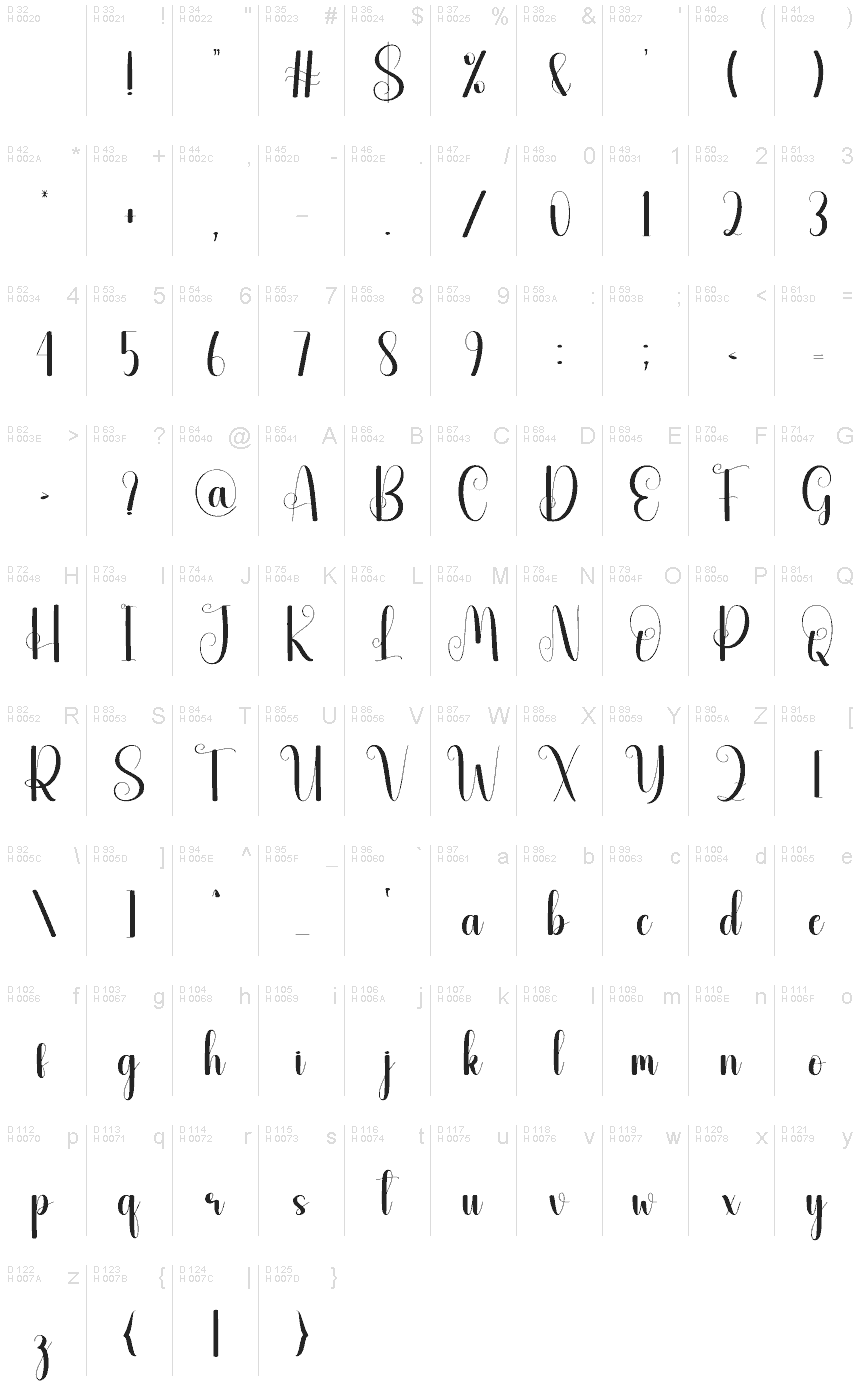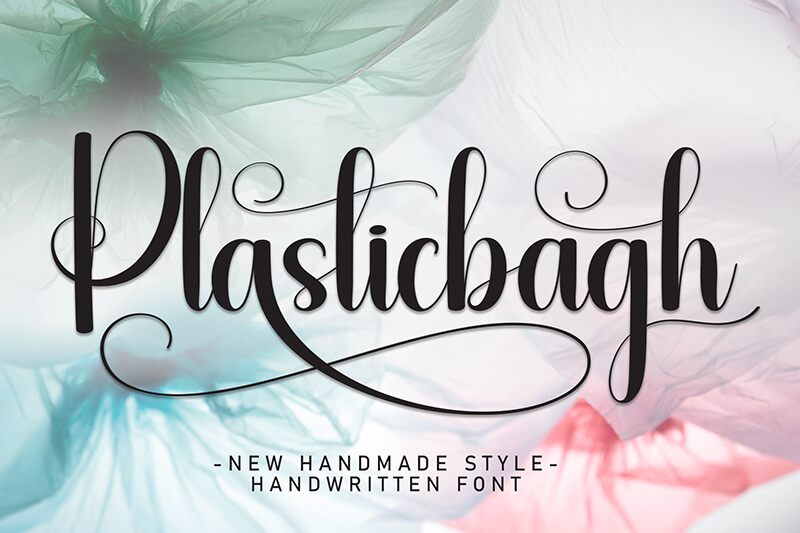
Plasticbagh
Plasticbagh font by Andi Moz combines elegant calligraphy with a modern feel for an ornamental, sophisticated script. The letters are condensed, flowing, and each seems to have a decorative flair that makes the visuals readable yet informative. For both short and long texts, the font is expressive without being loud or busy.